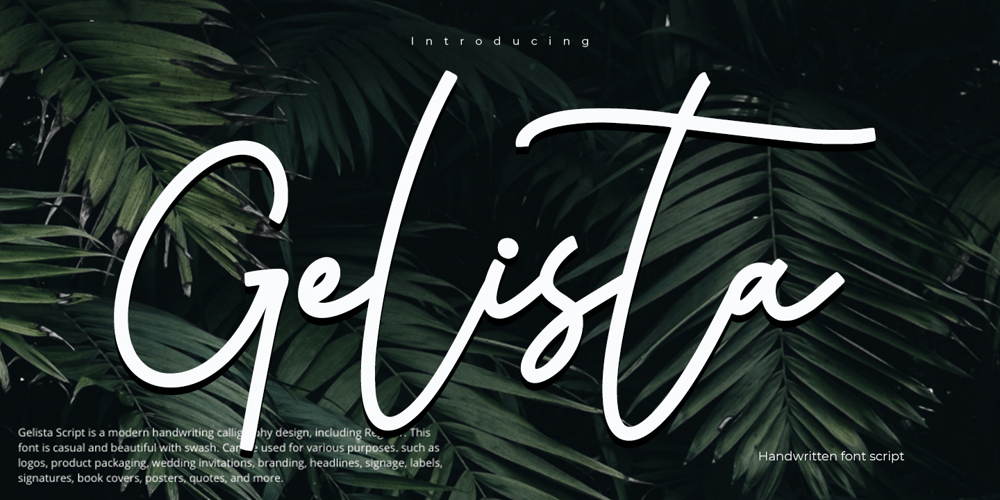
Gelista
Gelista font
Gelista Font Family was designed by Muhammad Zaini and published by Cocodesign. Gelista contains 1 styles and family package options. Gelista Script is a modern handwriting calligraphy design, including Regular. This font is casual and beautiful with swash. Can be used for various purposes. such as logos, product packaging, wedding invitations, branding, headlines, signage, labels, signatures, book covers, posters, quotes, and more.